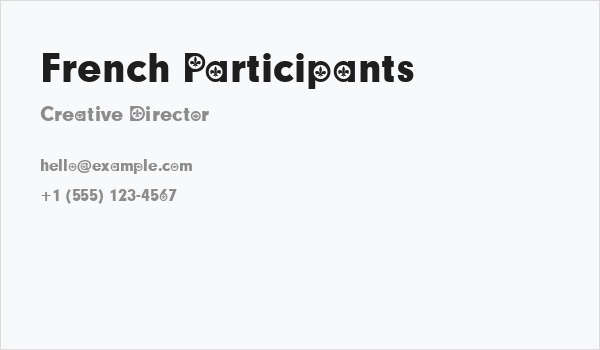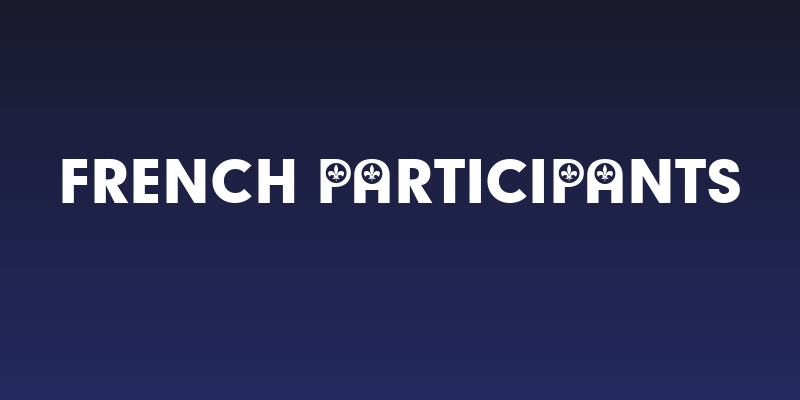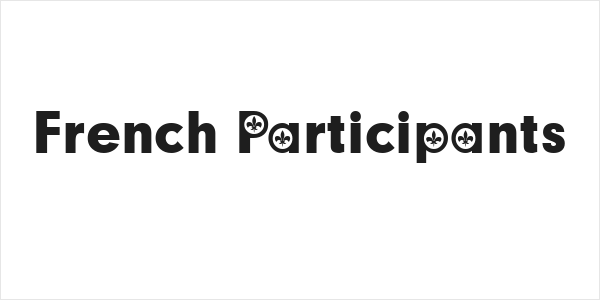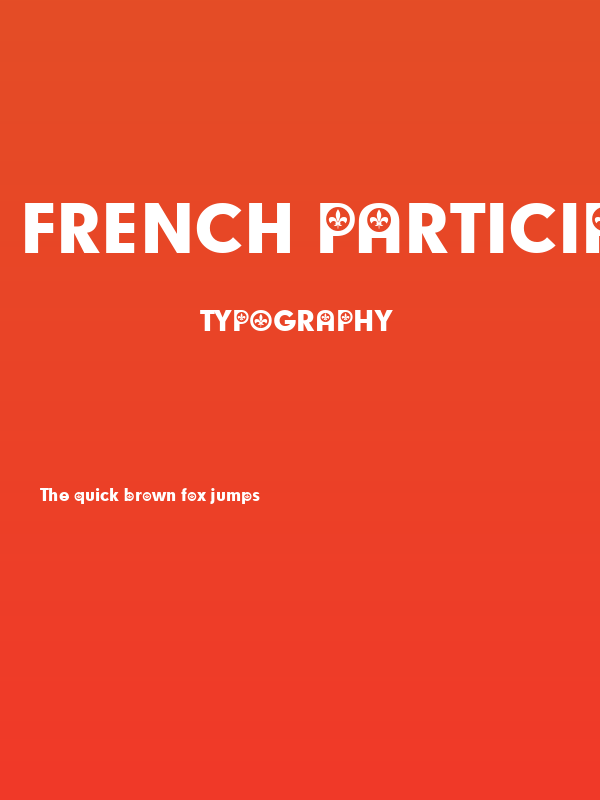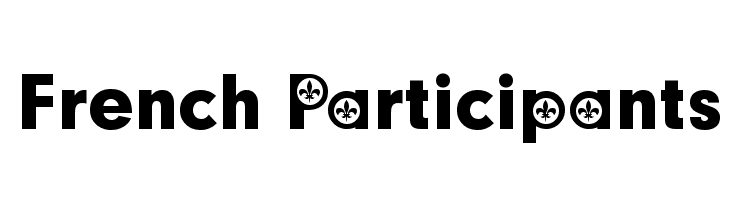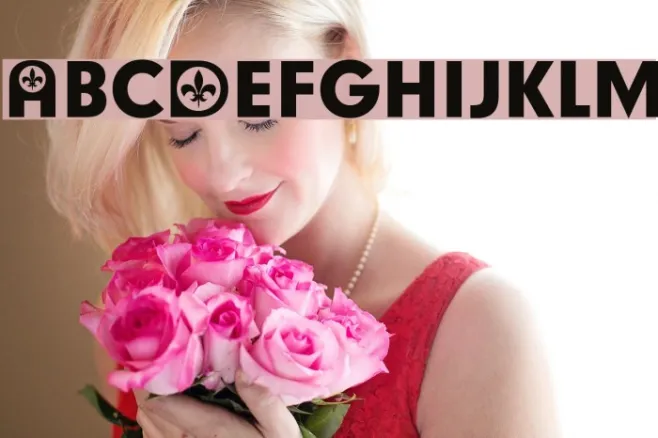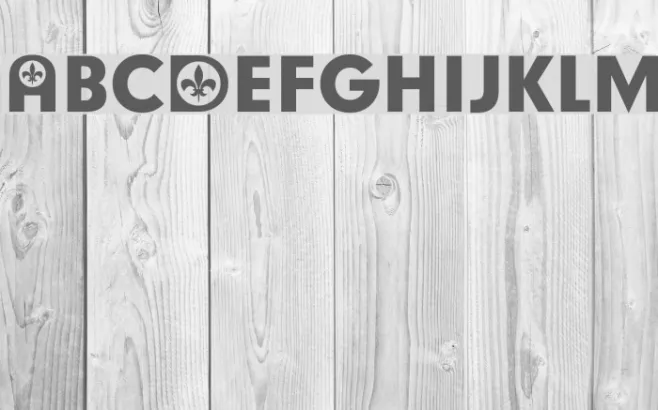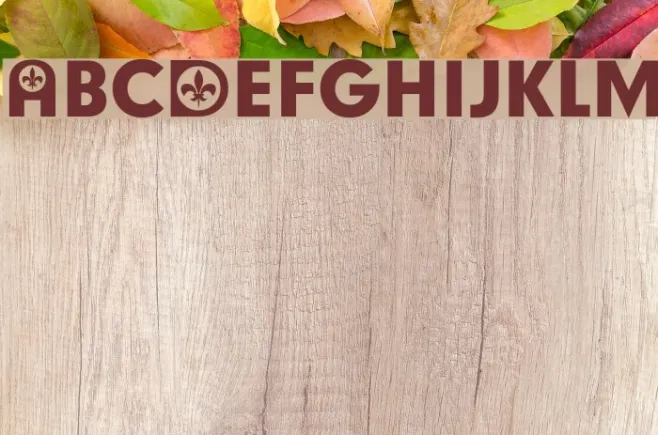
French Participants Font
French Participants Description
This bold and decorative font features a unique integration of fleur-de-lis symbols within the letterforms, adding a distinct French flair. The uppercase and lowercase letters maintain a consistent weight, providing a strong visual impact. The numbers and special characters are equally bold, ensuring uniformity across all text elements. The font's design is both modern and playful, making it suitable for creative projects that require a touch of elegance and cultural reference. The spacing between characters is normal, allowing for clear readability while maintaining its decorative appeal.
| Proposed Projects | Ideal for branding, posters, event invitations, and any project seeking a French-inspired aesthetic. |